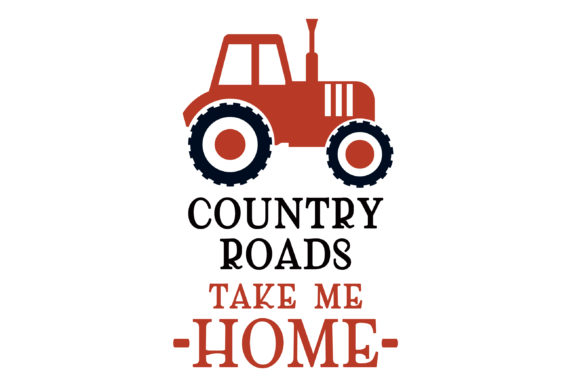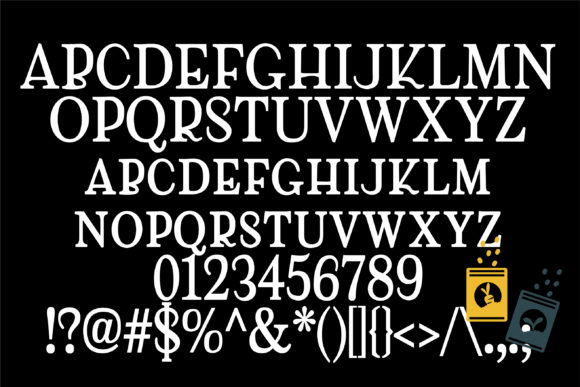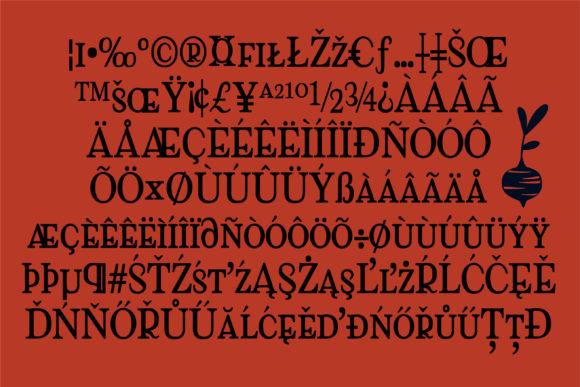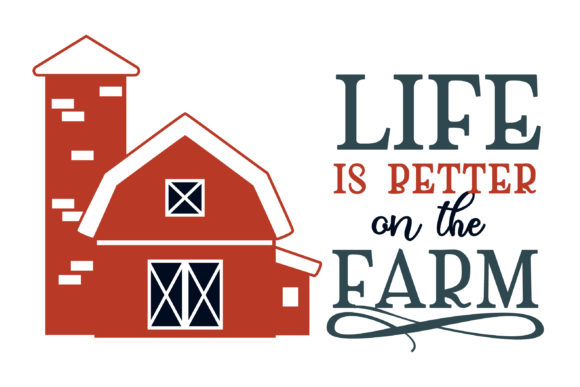
Discover the Charm of Farmer’s Market Font: Elevate Your Designs with a Creative DIY Twist
Are you looking for a font that can add a touch of rustic charm and creativity to your designs? Look no further than the Farmer’s Market Font. This fun serif font is perfect for crafters, designers, and anyone who wants to give their projects a unique, DIY look. With its charming appearance and feel, Farmer’s Market Font is sure to inspire you to create something truly special.
The Perfect Blend of Rustic and Refined
Farmer’s Market Font strikes the perfect balance between rustic and refined. Its serif design gives it a classic, timeless feel, while its playful and irregular shapes add a touch of whimsy and creativity. This font is perfect for a wide range of projects, from crafting and DIY tutorials to branding and marketing materials.
Key Features of Farmer’s Market Font
- Fun Serif Design: Farmer’s Market Font features a unique serif design that adds a touch of personality to any project.
- Creative DIY Look: With its irregular shapes and playful feel, this font is perfect for crafters and DIY enthusiasts.
- Charming Appearance: The font’s charming appearance is sure to evoke feelings of nostalgia and warmth.
- Versatile: Farmer’s Market Font can be used for a wide range of projects, from digital designs to print materials.
How to Use Farmer’s Market Font in Your Designs
Farmer’s Market Font is easy to use and can be incorporated into a variety of design projects. Here are a few ideas to get you started:
- Crafting Tutorials: Use Farmer’s Market Font to add a personal touch to your crafting tutorials and patterns.
- Branding and Marketing: Add a touch of rustic charm to your branding and marketing materials, such as business cards and brochures.
- Digital Designs: Use Farmer’s Market Font in your digital designs, such as social media graphics and blog posts.
- Print Materials: Incorporate Farmer’s Market Font into your print materials, such as flyers and posters.
Tips for Getting the Most Out of Farmer’s Market Font
Here are a few tips for getting the most out of Farmer’s Market Font:
- Experiment with Different Sizes: Try using Farmer’s Market Font in different sizes to add visual interest to your designs.
- Pair with Other Fonts: Pair Farmer’s Market Font with other fonts to create a unique and interesting contrast.
- Use in Combination with Images: Use Farmer’s Market Font in combination with images to add a touch of personality to your designs.
Farmer’s Market Font is a fun and creative serif font that can add a touch of rustic charm to any project. With its charming appearance and feel, this font is perfect for crafters, designers, and anyone who wants to give their designs a unique, DIY look. Whether you’re working on a crafting tutorial, branding materials, or digital designs, Farmer’s Market Font is sure to inspire you to create something truly special.